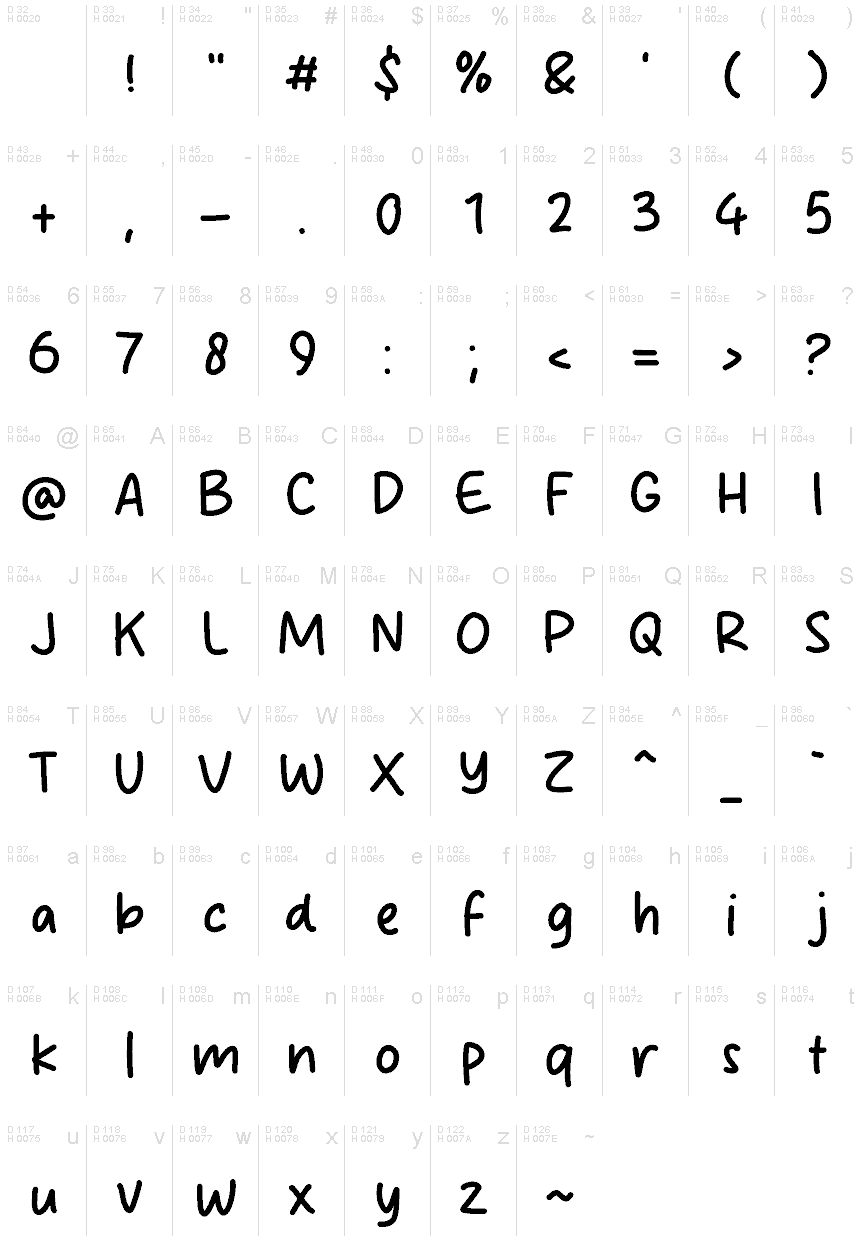
Spring Moon
Spring Moon font by MJType is a free handwritten font with a casual style and relaxing mood. The natural flow of the typeface gives it an approachable aesthetic and a handcrafted appearance. Rough outlines further enhance the imperfect yet decorative design. It consists of uneven letter strokes, very consistent spacing, as well as adequate readability.
Using this font is ideal for projects that require an original touch such as branding, logo design, stationery, or artistic prints. Other use cases can include greeting cards, t-shirt designs, packaging design, app interface text inserts and buttons. Posters ads can also be designed with Spring Moon in attempts to create relaxing vibes to the viewer.